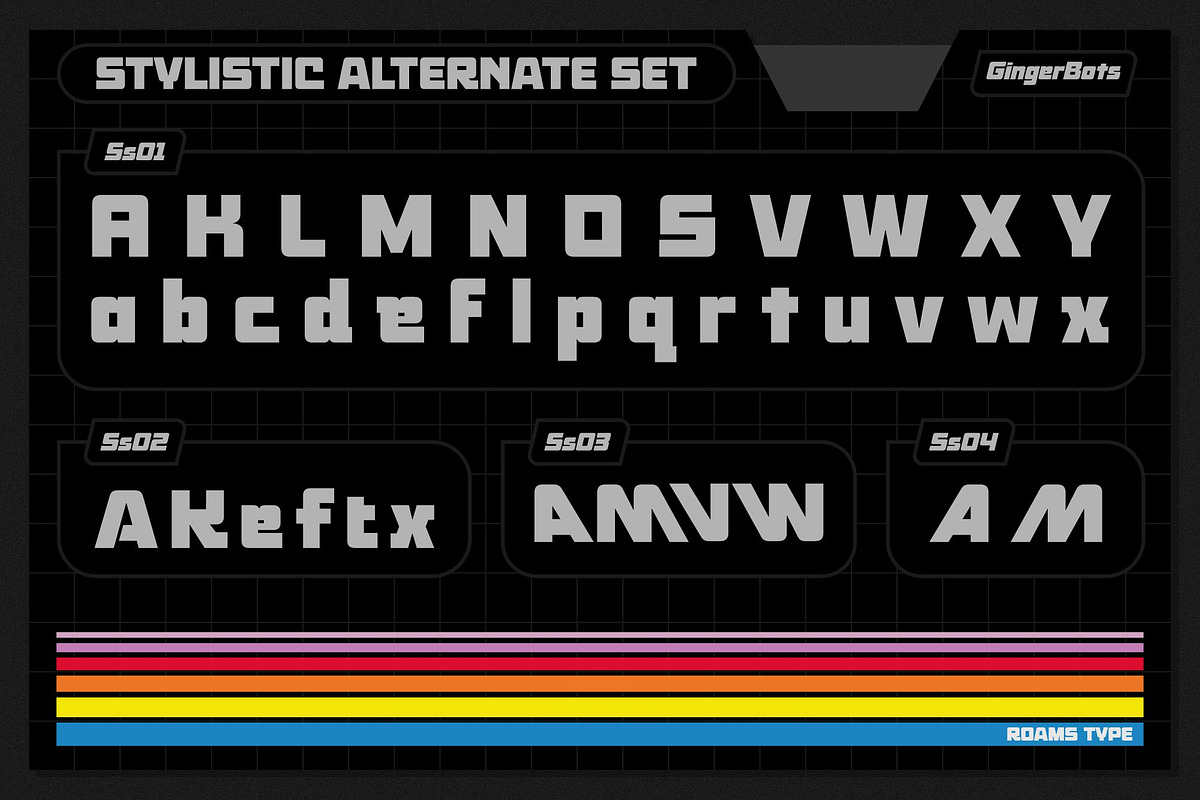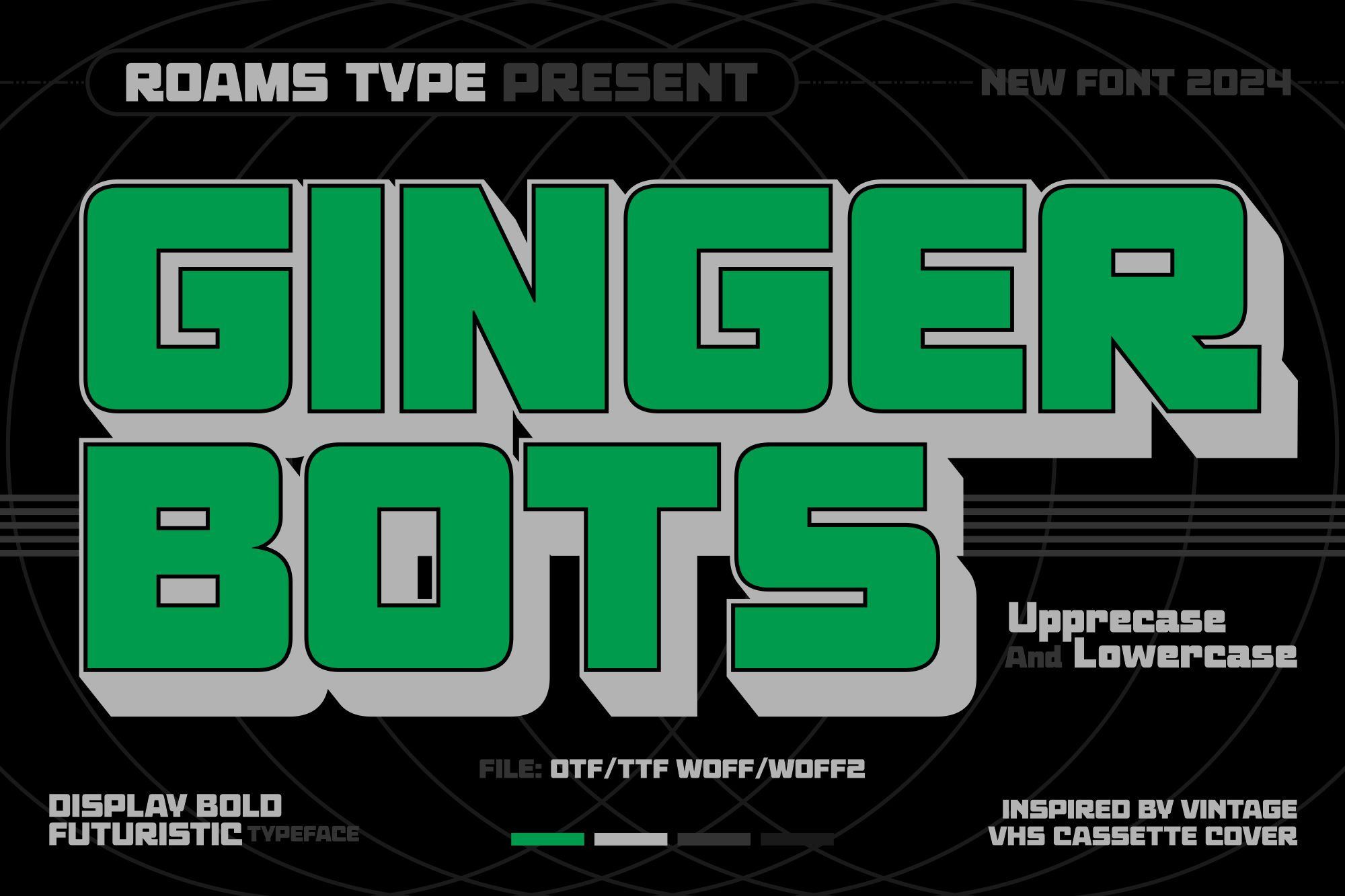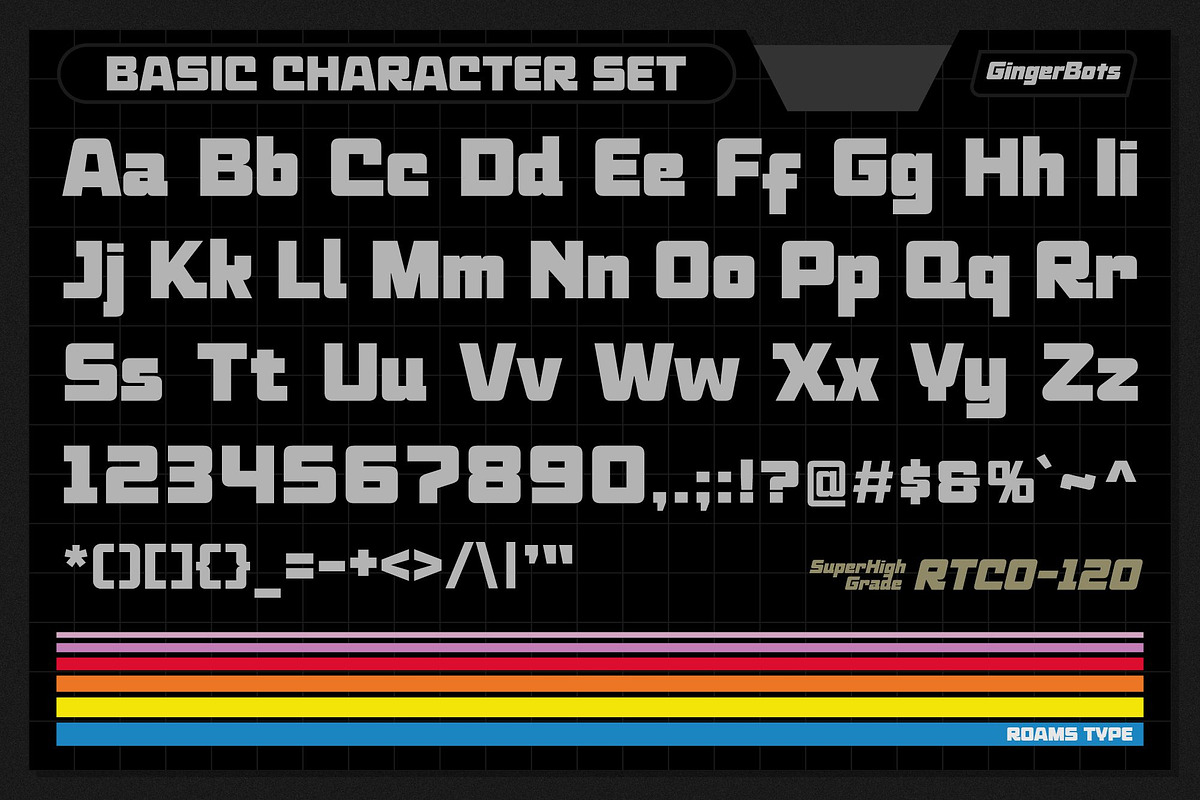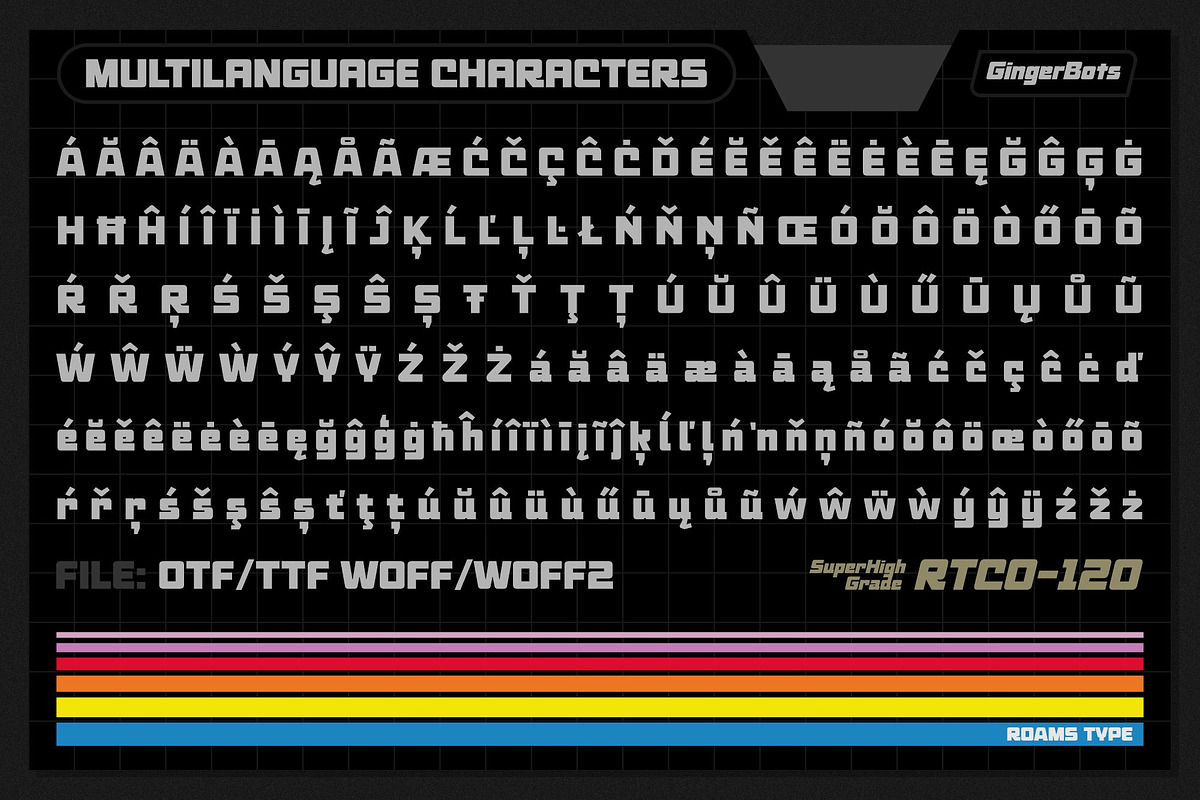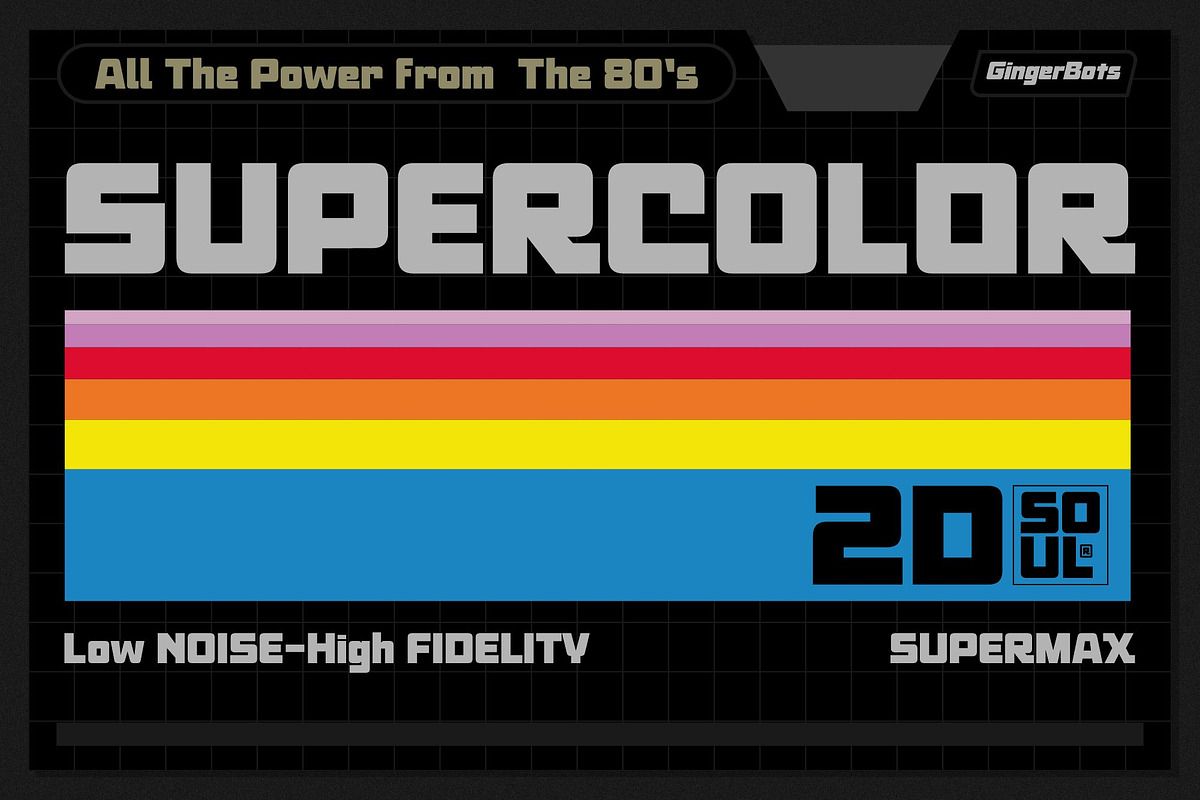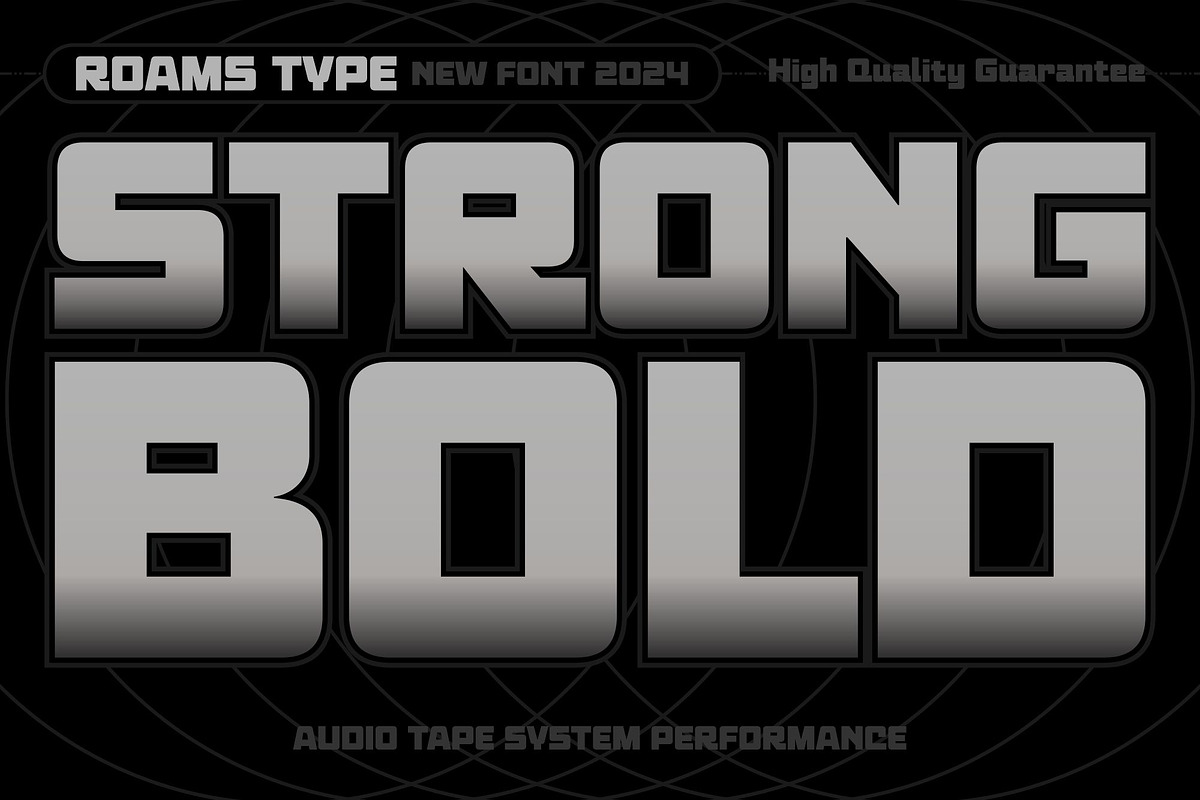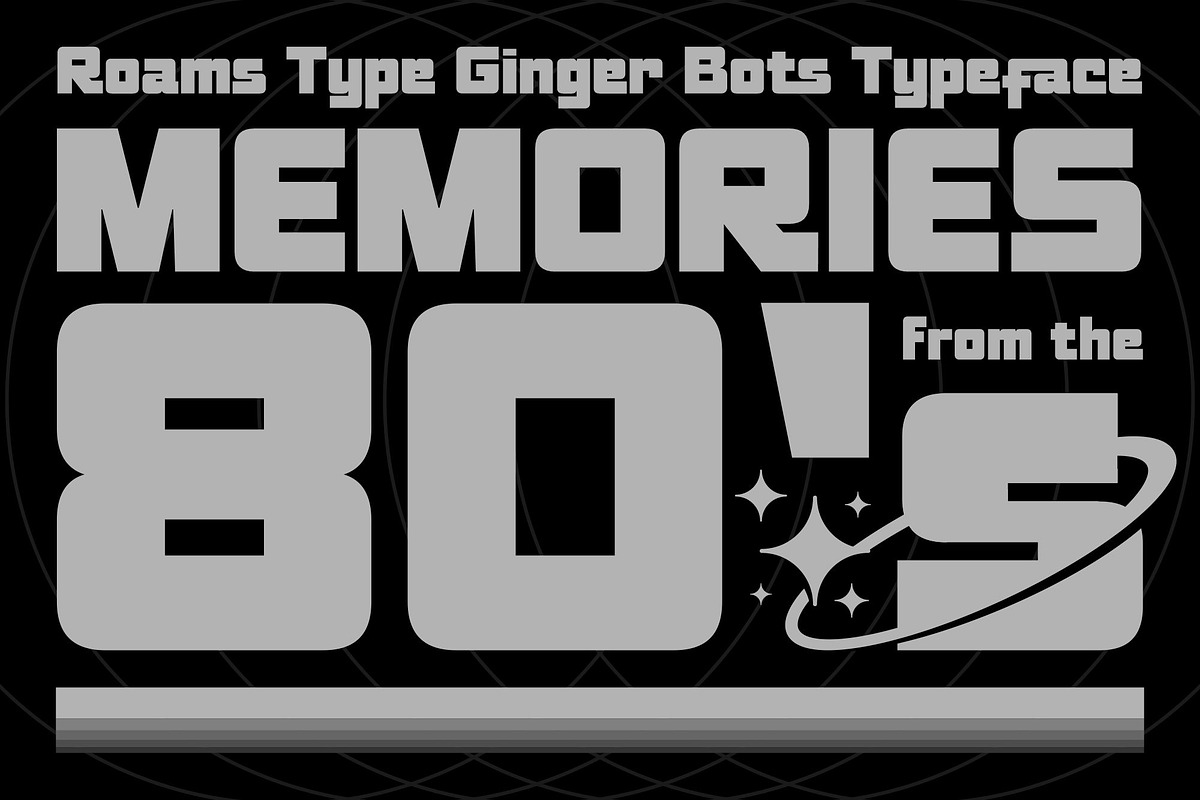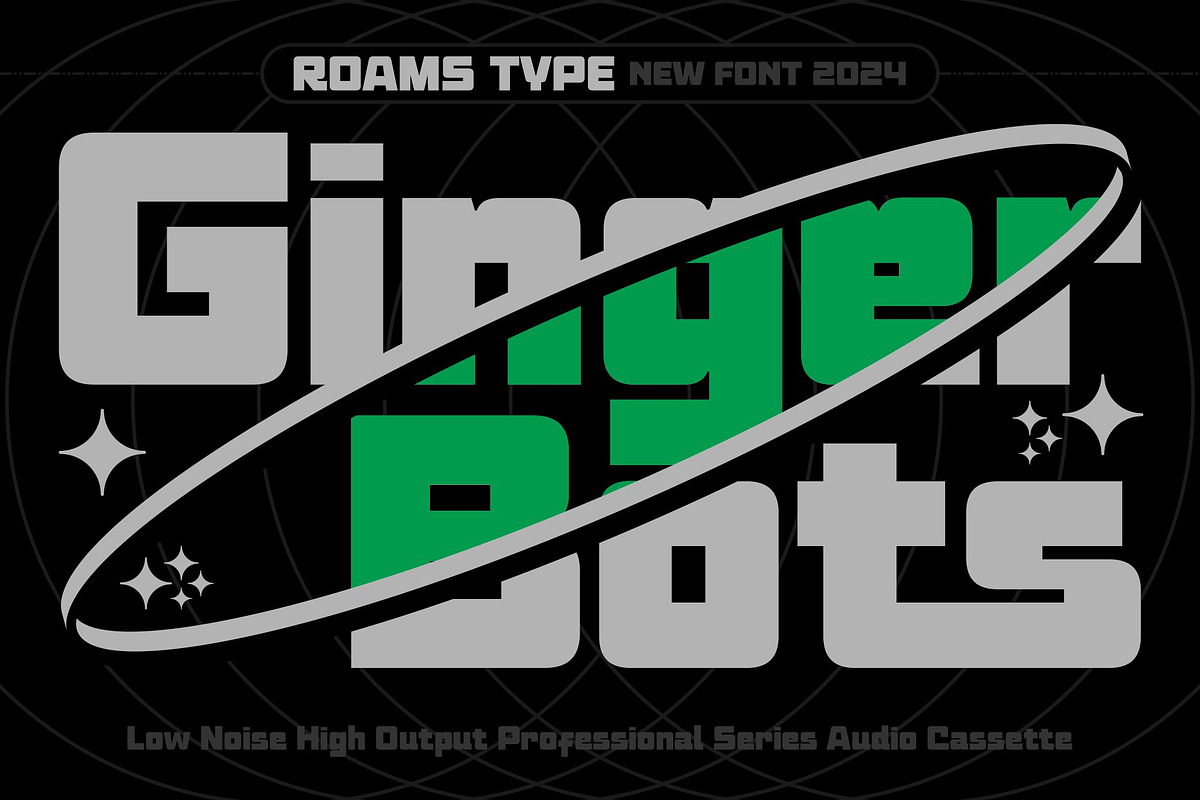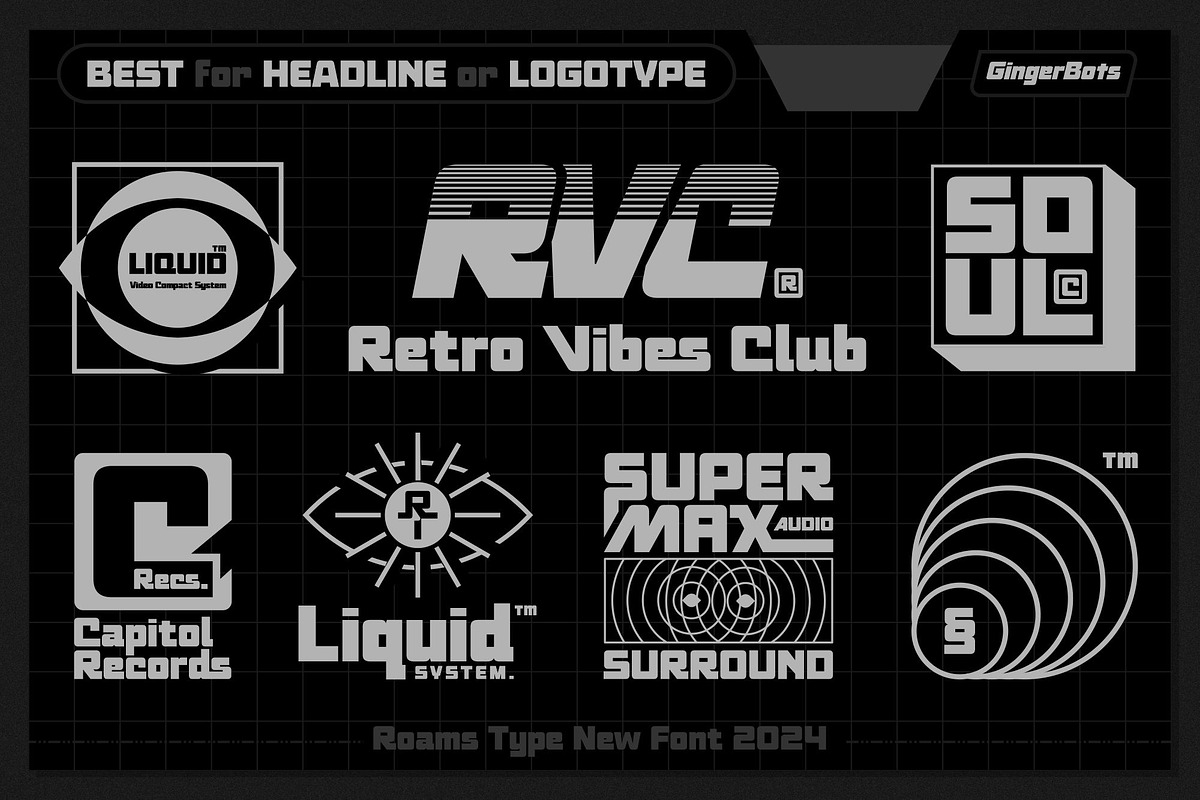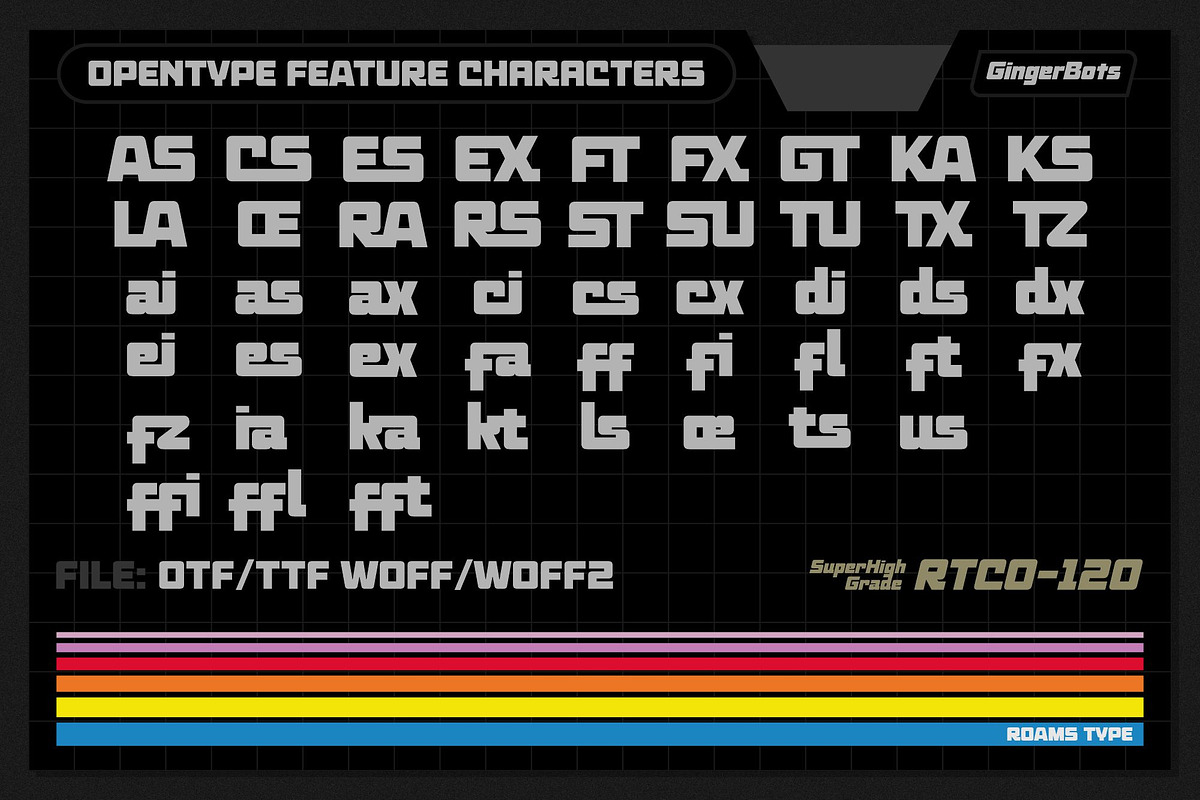
Ginger Bots - 80’s VHS Typeface
Ginger Bots Inspired by VHS Title Typography in the 80's era, with a bold and dynamic style, this font will strengthen your logo design or logo typography.
- Include Alternate Characters
| Uppercase & Lowercase | Numerals & Punctuation | Ligatures | Multilanguage support